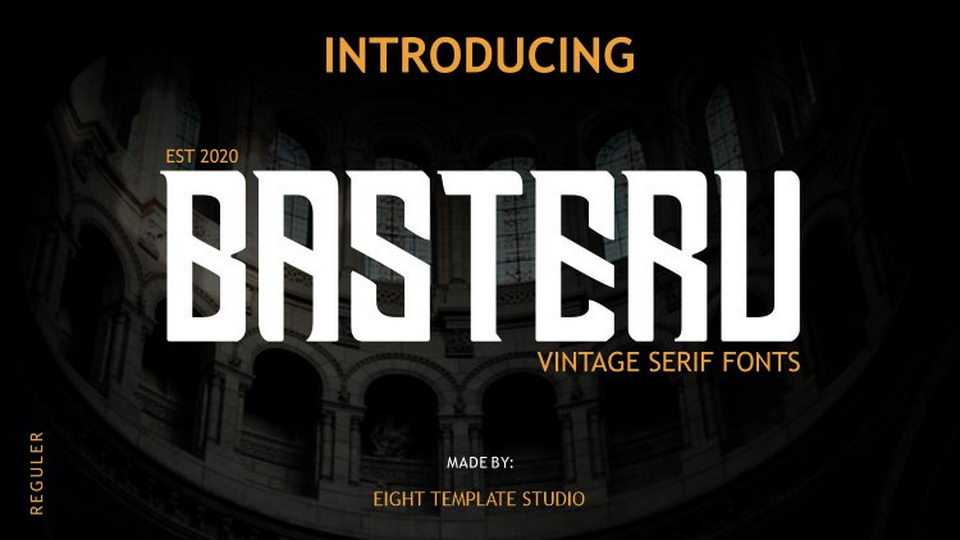
Download Basteru font, a bold vintage serif typeface created for your needs. Basteru is very suitable for logos for branding, typographic designs, badge designs, product packaging, invitations, offers, t-shirt designs, label posters, special events, and anything that requires vintage tastes.
Designer: Eight Template Studio